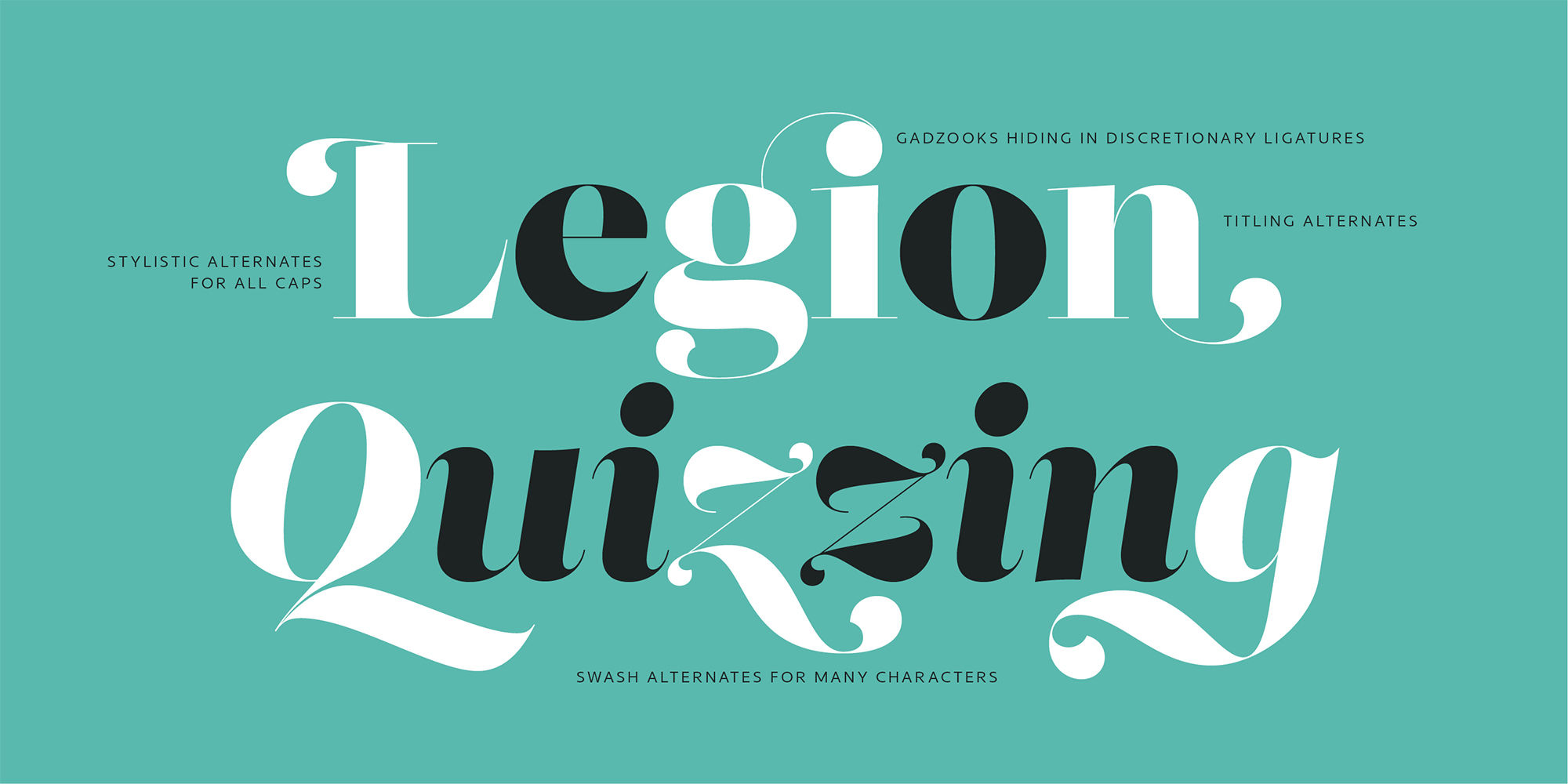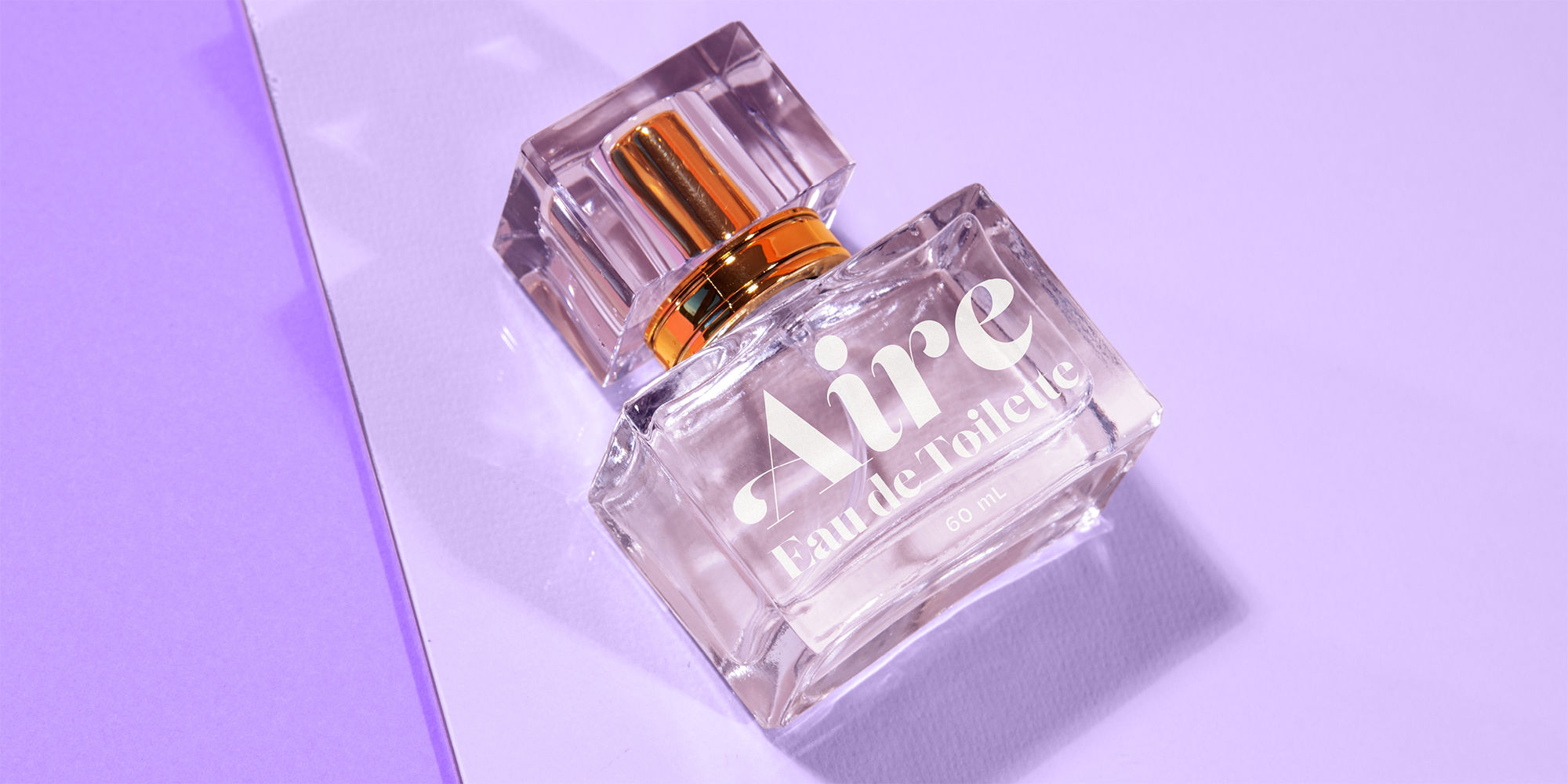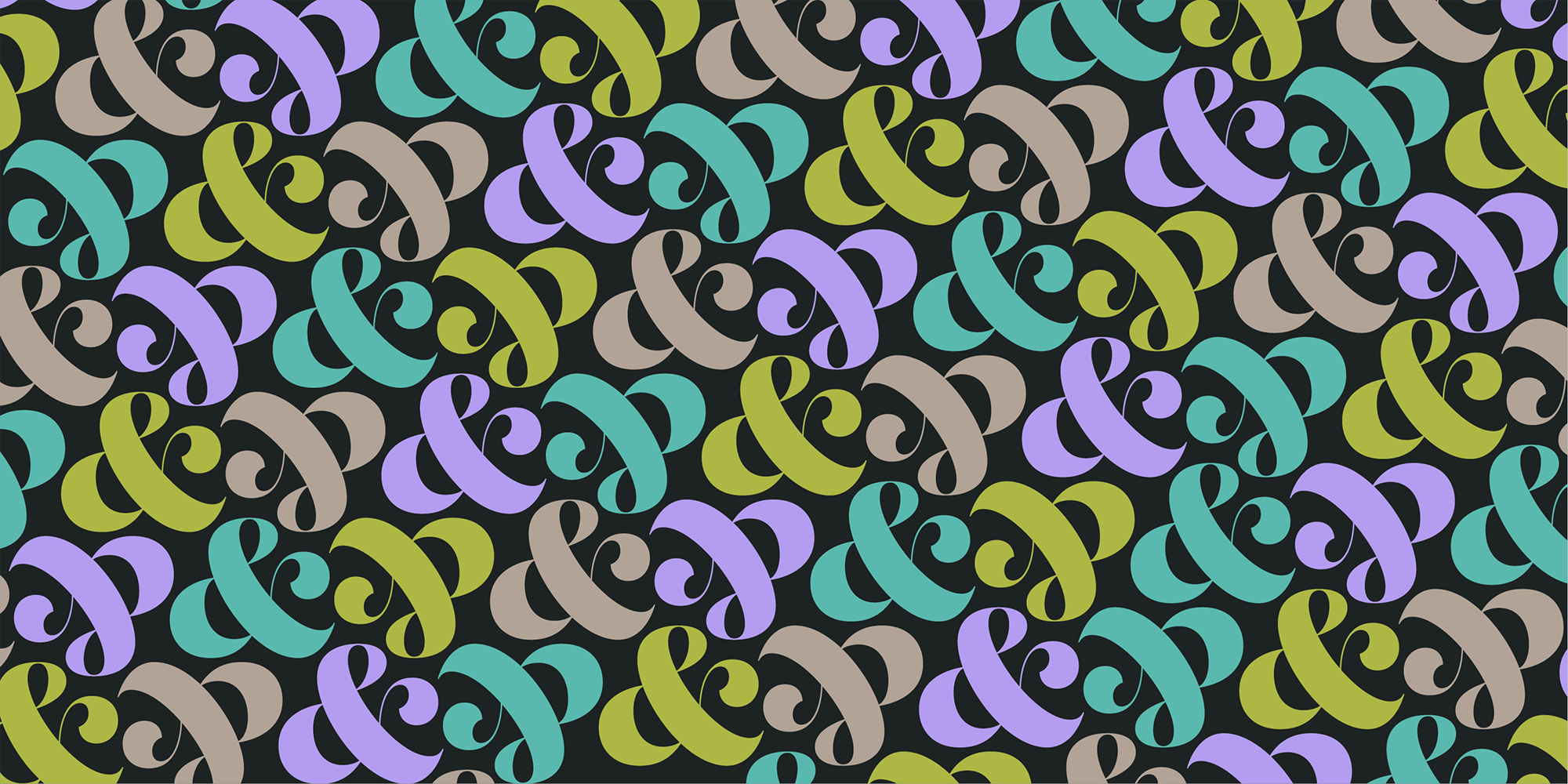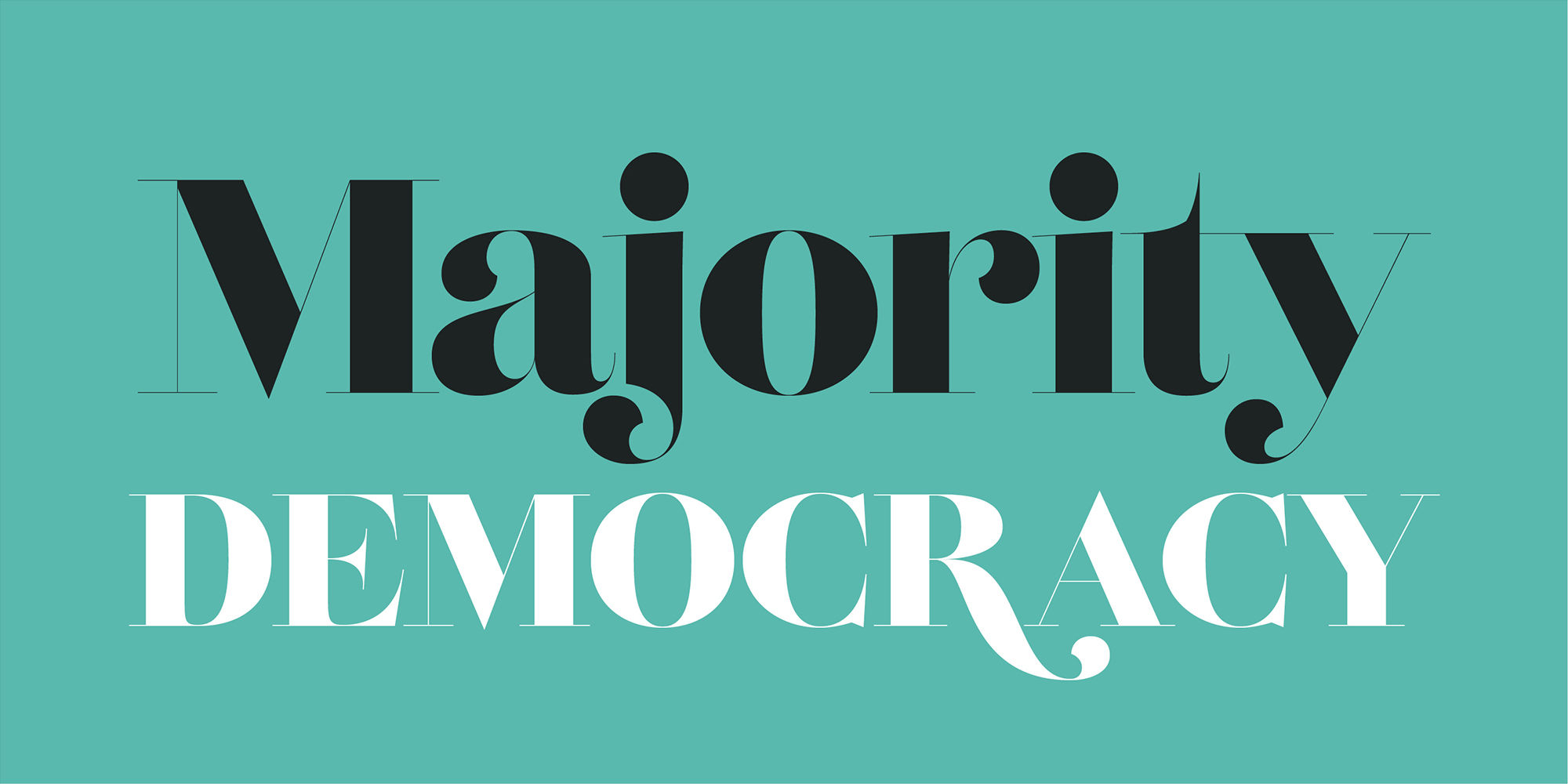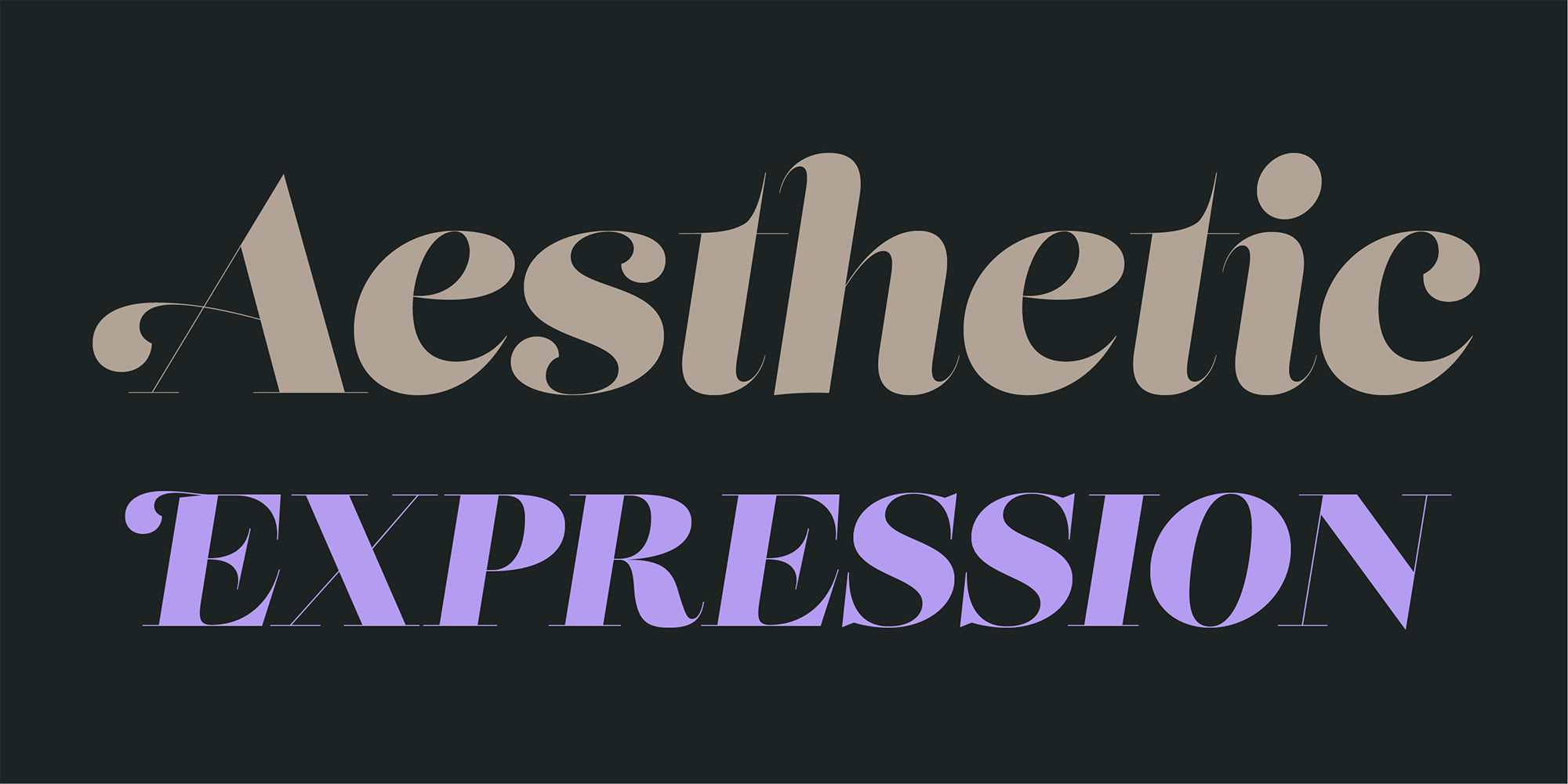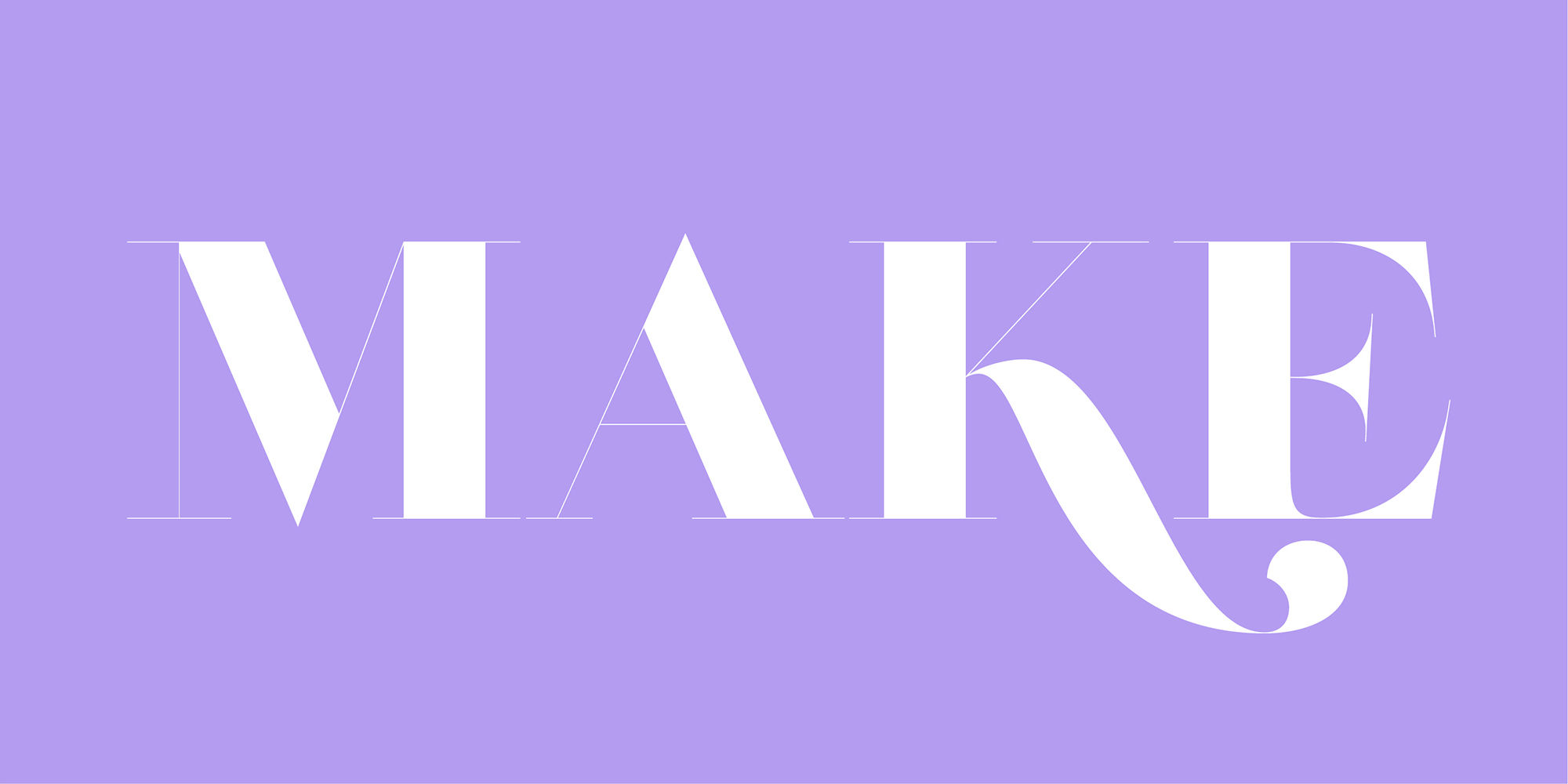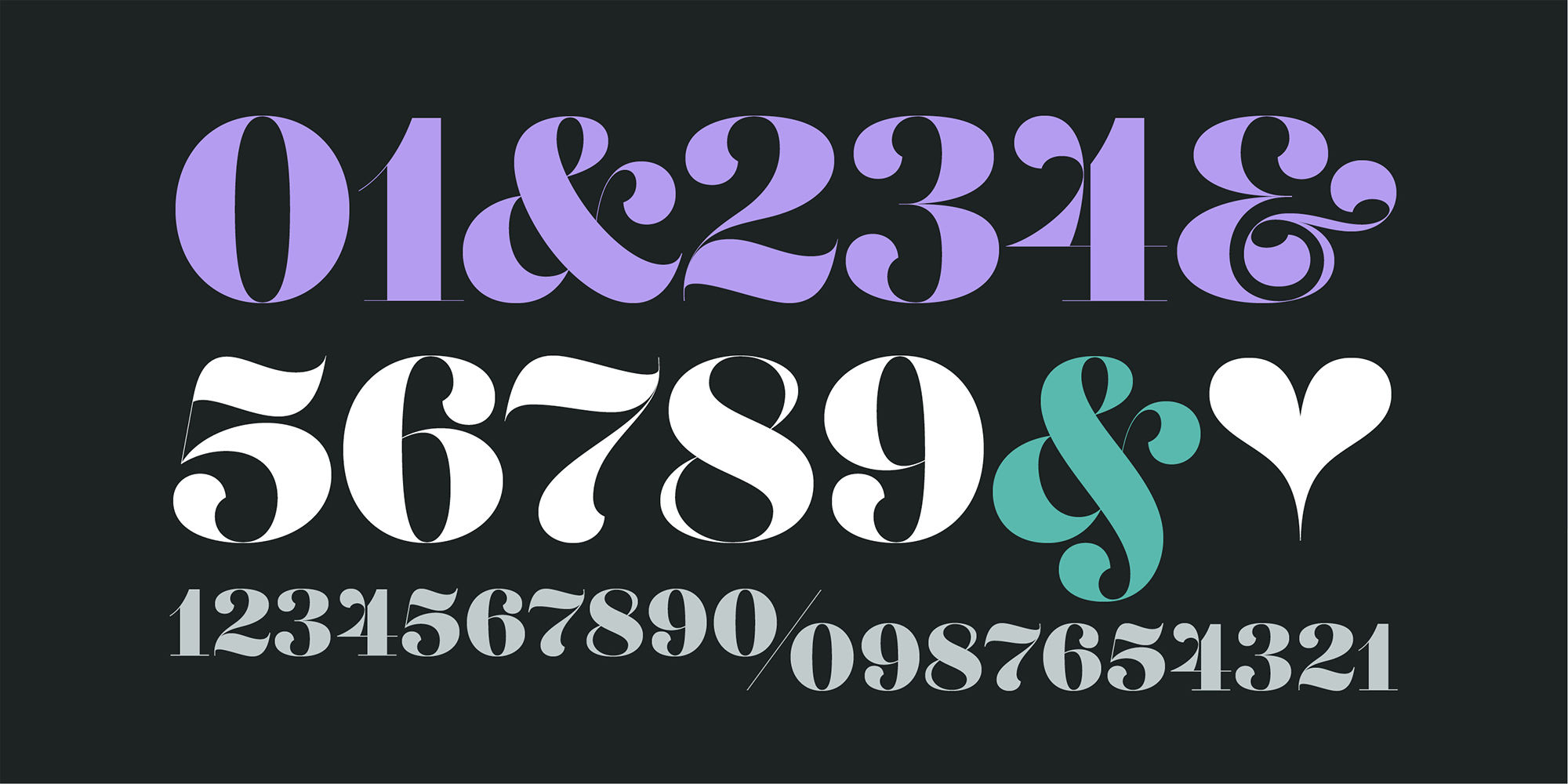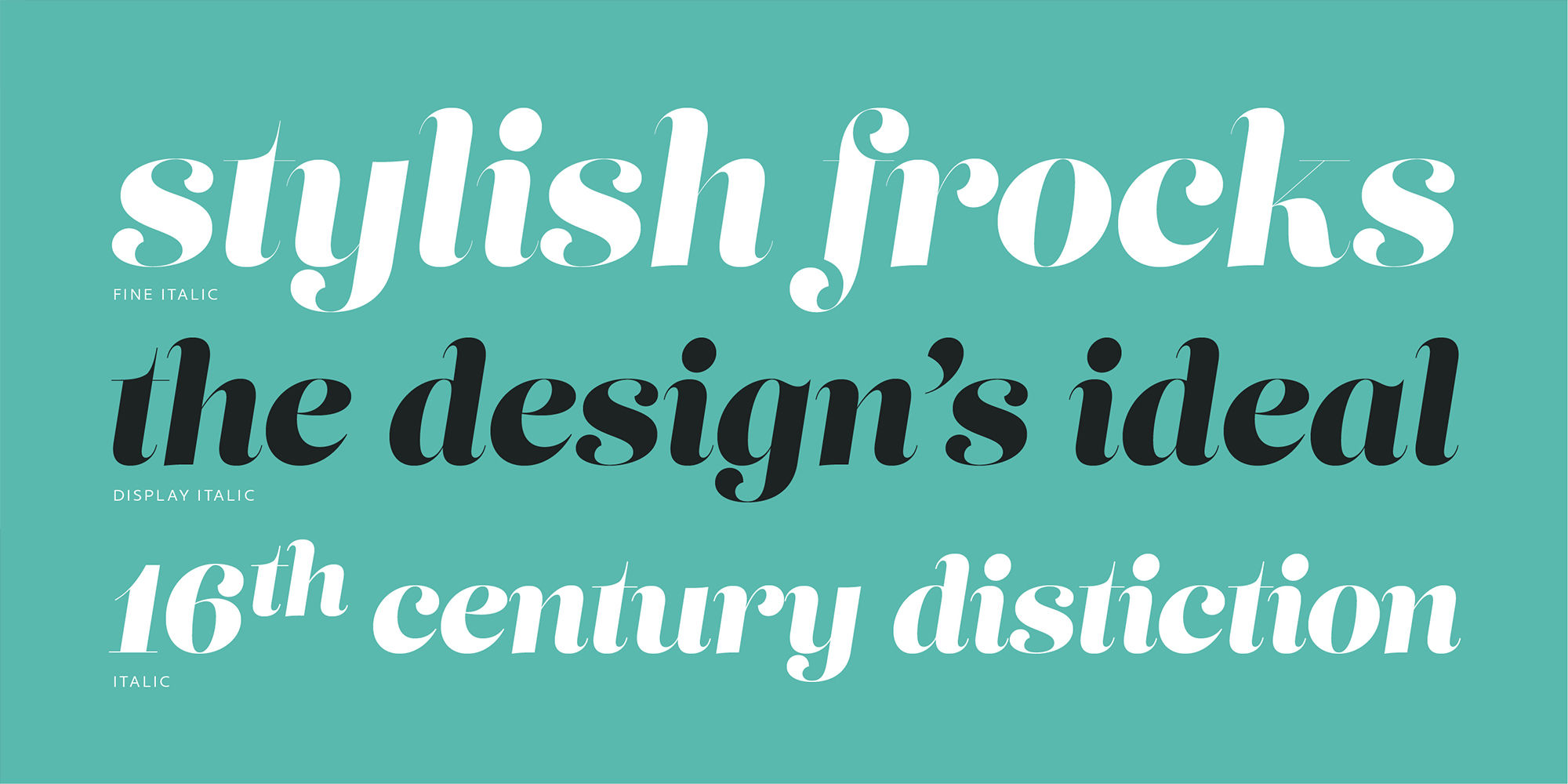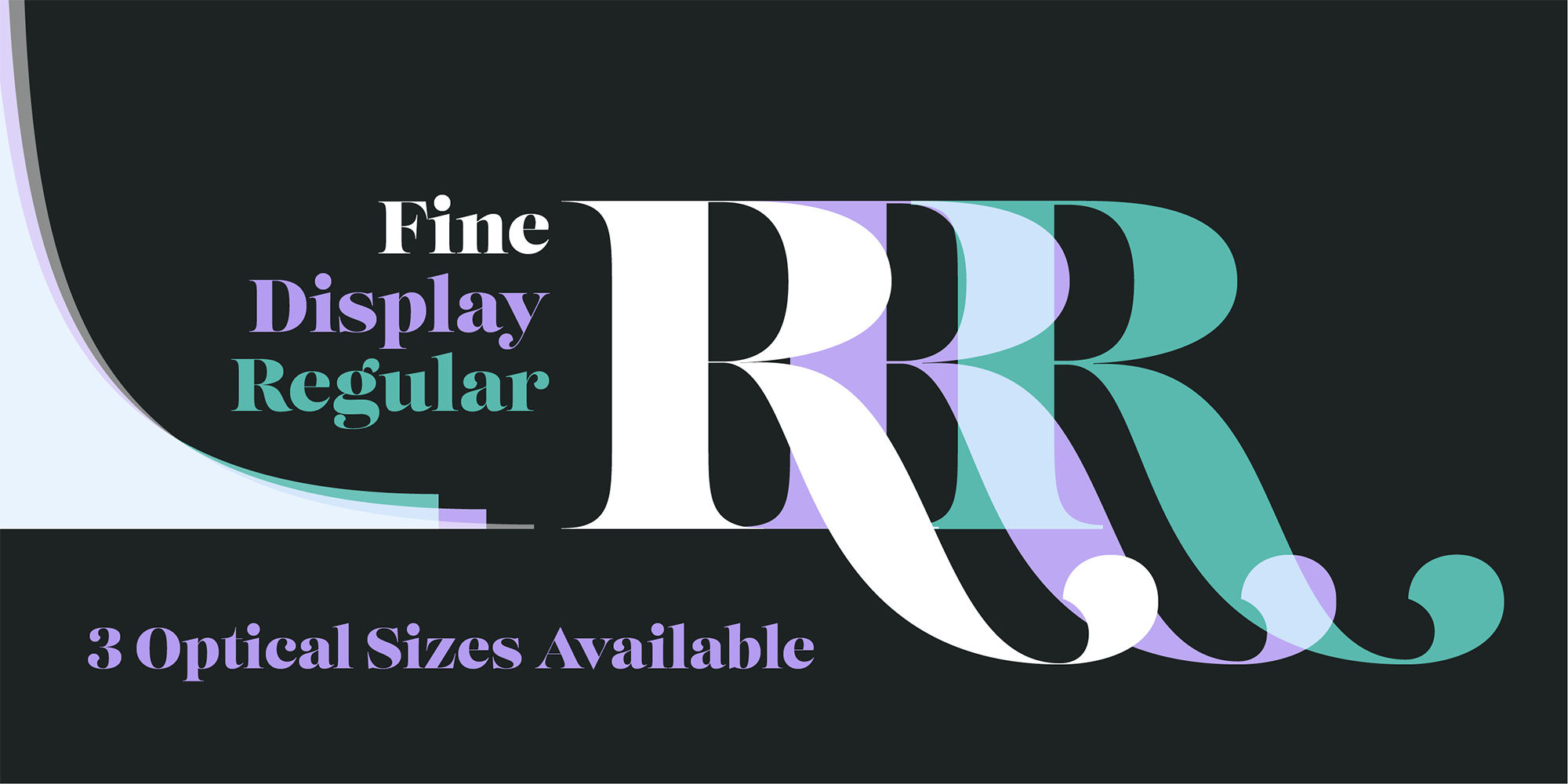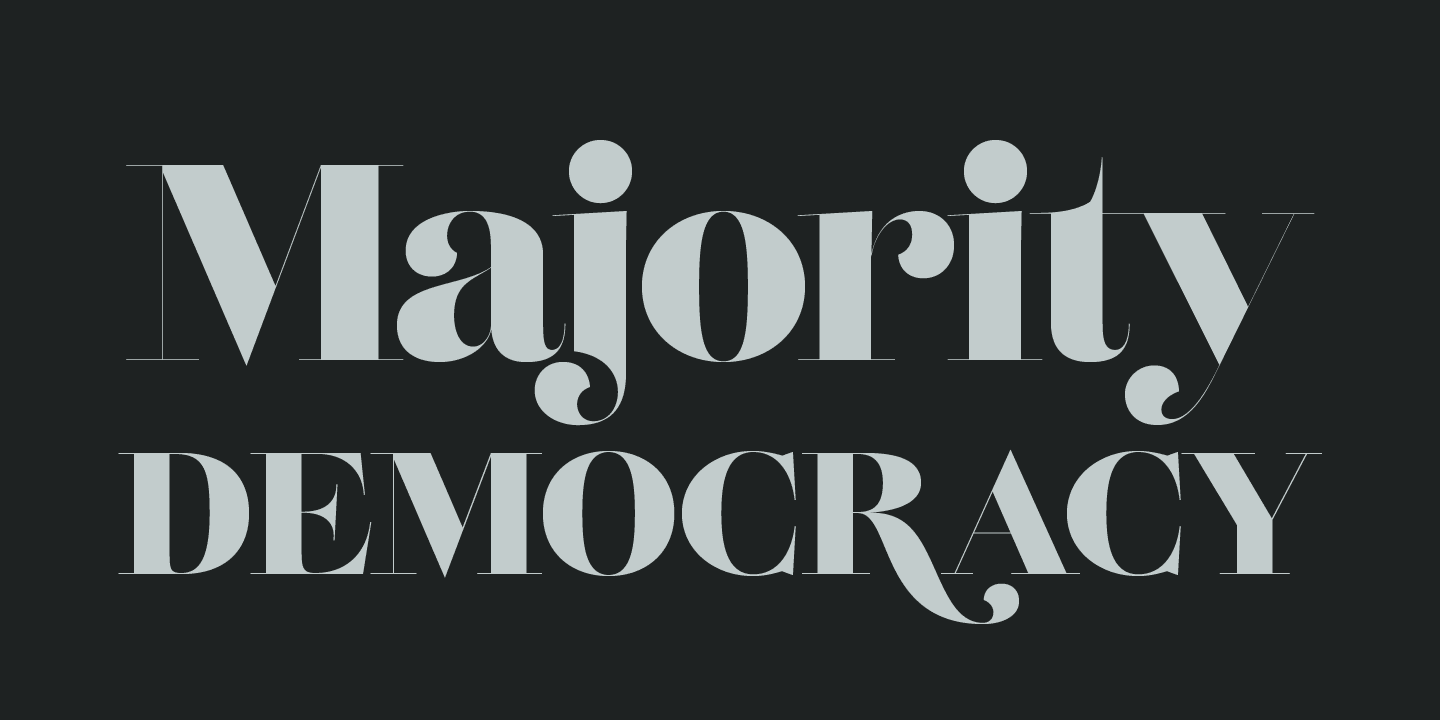
Lust Didone
Lust Didone’s character set was expanded as well during the redraw and update, the Italics were separated and reimagined anew from the universal italics in the original offering. Lust Didone also includes the new Fine optical size with complementing Italics for each size as well. And, yes, more swashes.
The Lust Collection is the culmination of 5 years of exploration and development, and I am very excited to share it with everyone. When the original Lust was first conceived in 2010 and released a year and half later, I had planned for a Script and a Sans to accompany it. The Script was released about a year later, but I paused the Sans. The primary reason was the amount of feedback and requests I was receiving for alternate versions, expansions, and ‘hey, have you considered making?’ and so on. I listen to my customers and what they are needing… and besides, I was stalling with the Sans. Like Optima and other earlier high-contrast sans, they are difficult to deliver responsibly without suffering from ill-conceived excess or timidity. The new Lust Collection aggregates all of that past customer feedback and distills it into 6 separate families, each adhering to the original Lust precept of exercises in indulgence and each based in large part on the original 2010 exemplars produced for Lust. I just hate that it took so long to deliver, but better right, than rushed, I imagine.